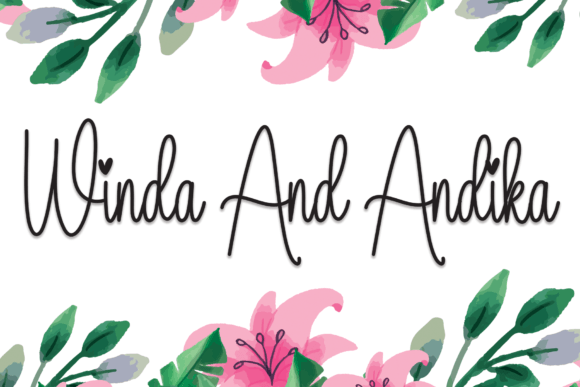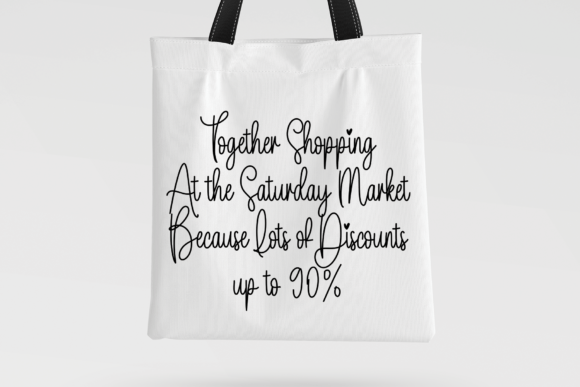
Add a lovely and timeless touch with the Honeymoon Vacation font. This handwritten script is perfect for creating eye-catching logos, branding, and quotes. Each letter carries a unique and beautiful style that brings your designs to life.
The Honeymoon Vacation font suits a wide variety of creative projects. Use it for wedding invitations, social media posts, business branding, posters, and greeting cards. Its elegant style adds warmth and sophistication to your work.
Each character is crafted with smooth, flowing strokes. This creates a polished and graceful look. The font balances artistic flair with clear readability. It is ideal for headlines, logos, quotes, and decorative text.
Despite its decorative style, the Honeymoon Vacation font remains readable at various sizes. Whether for bold titles or subtle accents, it adapts well. Its versatility makes it suitable for many creative applications.
Using this font will help your projects stand out. It adds a romantic and professional vibe. If you want your designs to look elegant and memorable, the Honeymoon Vacationfont is an excellent choice.
In summary, the Honeymoon Vacationfont fits many design needs. From branding to wedding projects and social media, it brings charm and beauty. Download it today and create stunning, timeless designs with a lovely handwritten script.